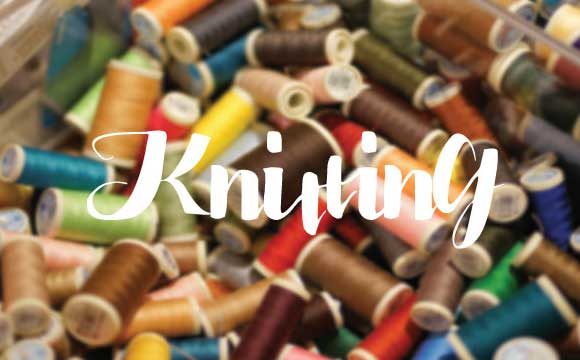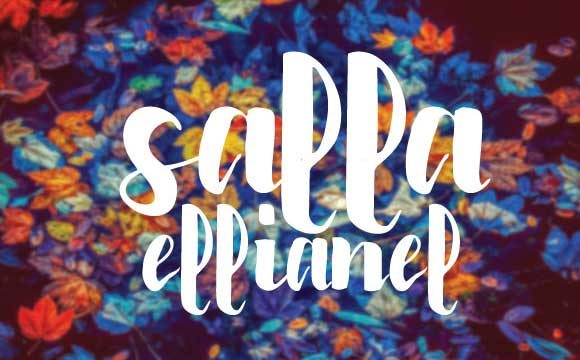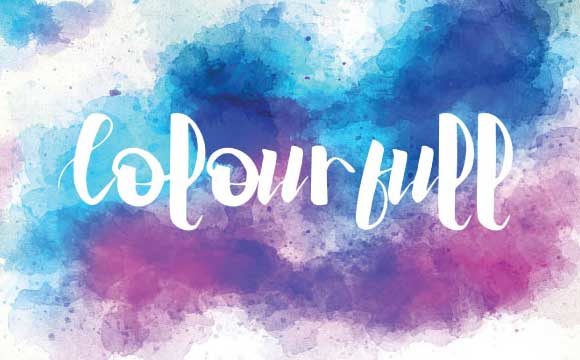
Introduction to Edfander Font
Have you ever sat at your desk, surrounded by scraps of paper, glue sticks, and half-finished projects, and suddenly, the perfect idea strikes? The excitement is palpable, and your creative juices start flowing like never before. That’s exactly what happened when I stumbled upon the Edfander Font. Its classic charm and whimsical feel instantly captured my heart, and I knew I had to share it with fellow designers and crafty enthusiasts.
About the Edfander Font
The Edfander Font is a timeless design resource that exudes a sweet and romantic feel, making it the perfect addition to any creative project. With its transparent background and high-quality design, this font is sure to elevate your work to new heights. And the best part? It’s available for a free download, making it accessible to designers of all levels.
Why You’ll Love the Edfander Font
Whether you’re a seasoned designer or just starting out, the Edfander Font is a valuable addition to your design arsenal. Its versatility and charm make it perfect for a wide range of creative projects, from wedding invitations to scrapbook layouts. So why not give it a try and see how it can add a touch of magic to your next project?
Key Features of Edfander Font
- High-quality font with a transparent background, ideal for design resources and creative projects.
- Features a clean and modern design, perfect for use in logos, typography, and branding materials.
- Supports a wide range of languages, including Latin, Cyrillic, and Greek alphabets.
- Includes a comprehensive character set, including punctuation marks, numbers, and special characters.
Honest Review: Edfander Font
As a designer, I’m always on the lookout for high-quality design resources to elevate my creative projects. Recently, I had the chance to work with the Edfander Font, and I must say it’s been a game-changer.
Here’s what I love about the Edfander Font:
- ✨ Unique and modern design that adds a touch of sophistication to any project
- ✨ Highly legible and versatile, making it perfect for a wide range of applications
- ✨ Compatible with transparent backgrounds, allowing for seamless integration into designs
However, I do have a few concerns:
- ⚠️ Limited font sizes available, which may require some additional formatting to achieve the desired look
- ⚠️ Not ideal for extremely small or large text sizes, as it may lose some of its clarity
Overall, I’m thoroughly impressed with the Edfander Font. Its modern design, high quality, and free download make it an excellent addition to any designer’s toolkit. While it may have some limitations, I believe the benefits far outweigh the drawbacks.
Tips for Getting the Most Out of Edfander Font
Use the Edfander Font on a transparent background to create a striking design. Experiment with different font sizes and colors to add visual interest to your project. You can also combine the Edfander Font with other design elements, such as graphics and images, to create a unique look.
The Edfander Font is a versatile design resource that can be used for various creative projects, including logos, business cards, and social media graphics. It’s also a great choice for presentations, documents, and websites.